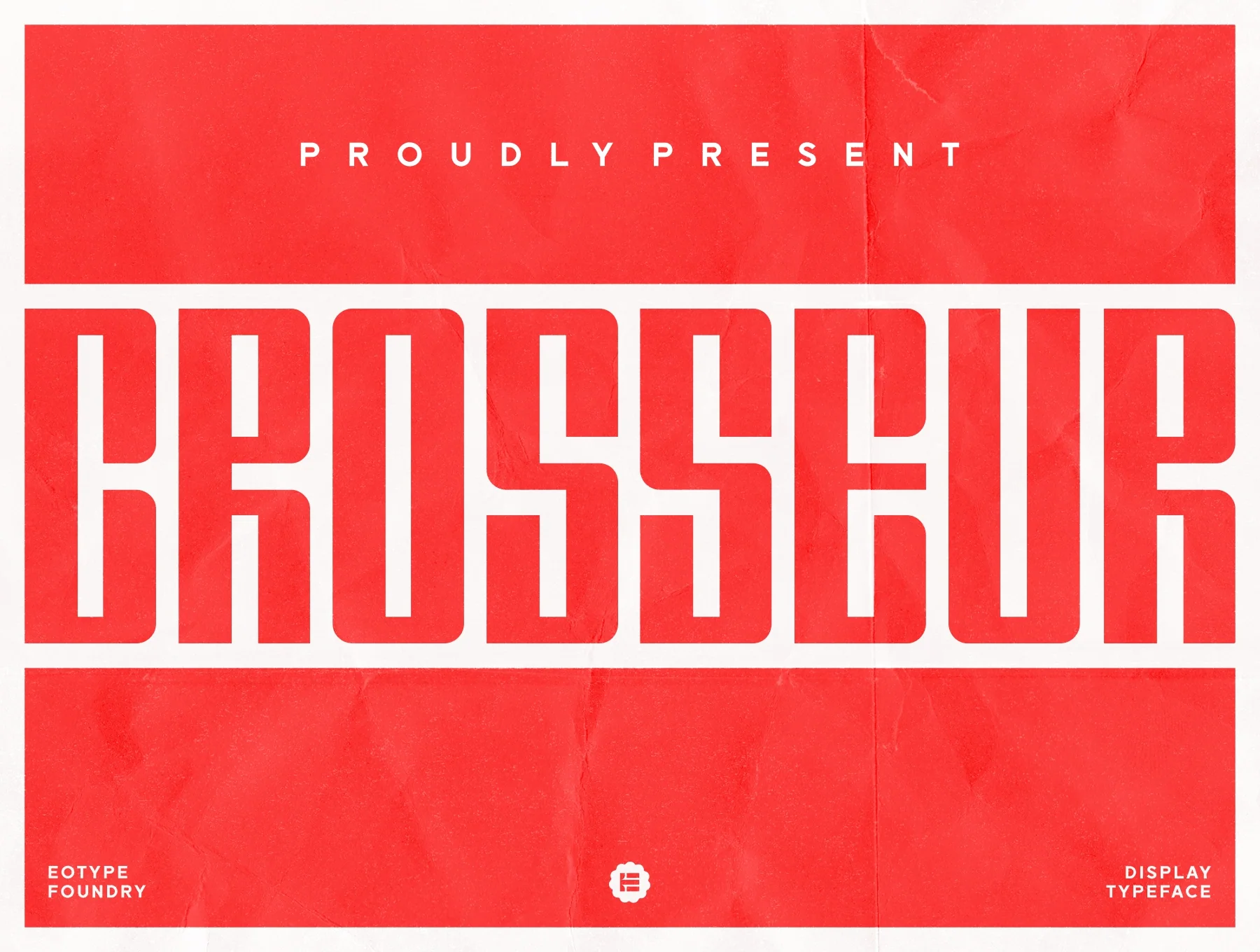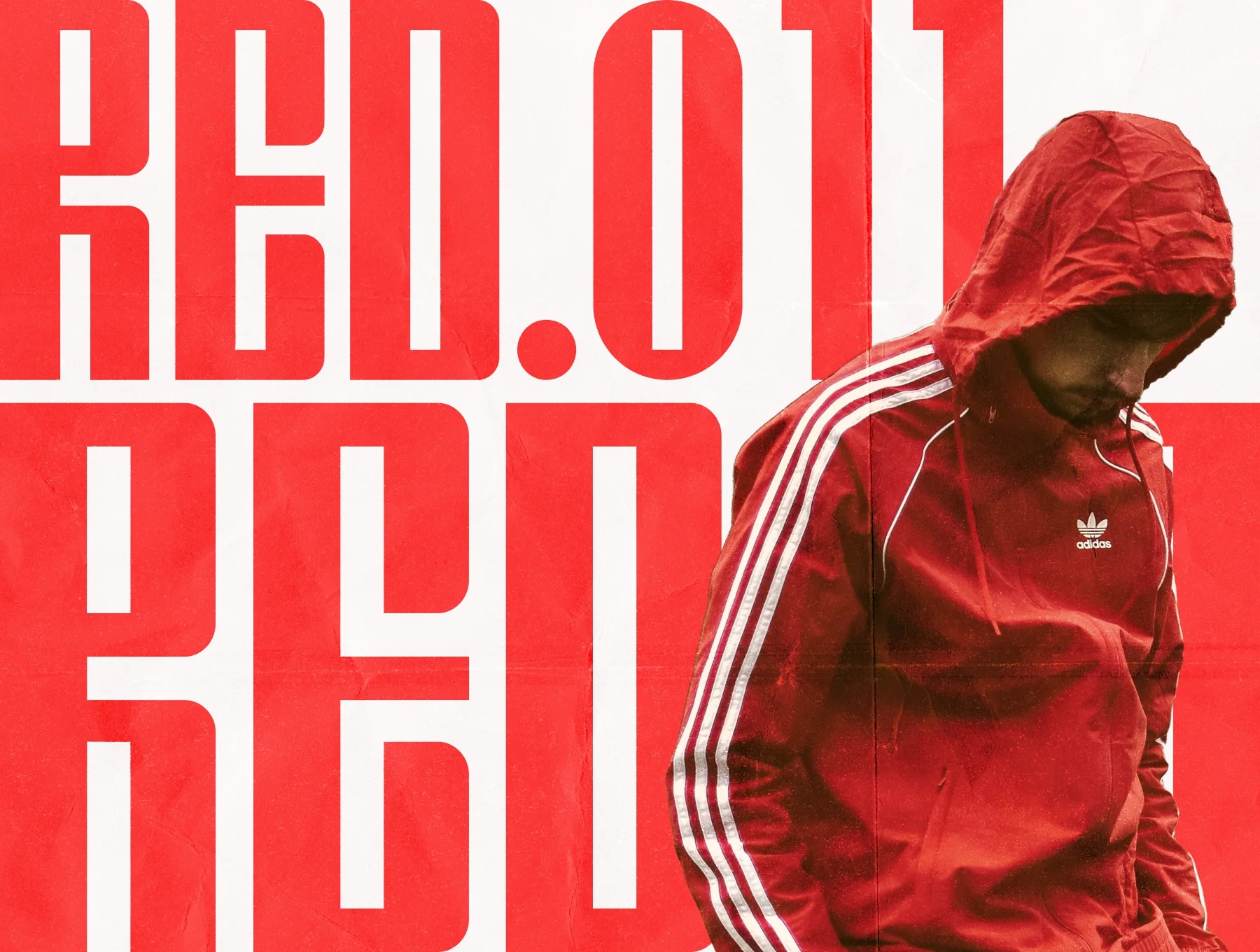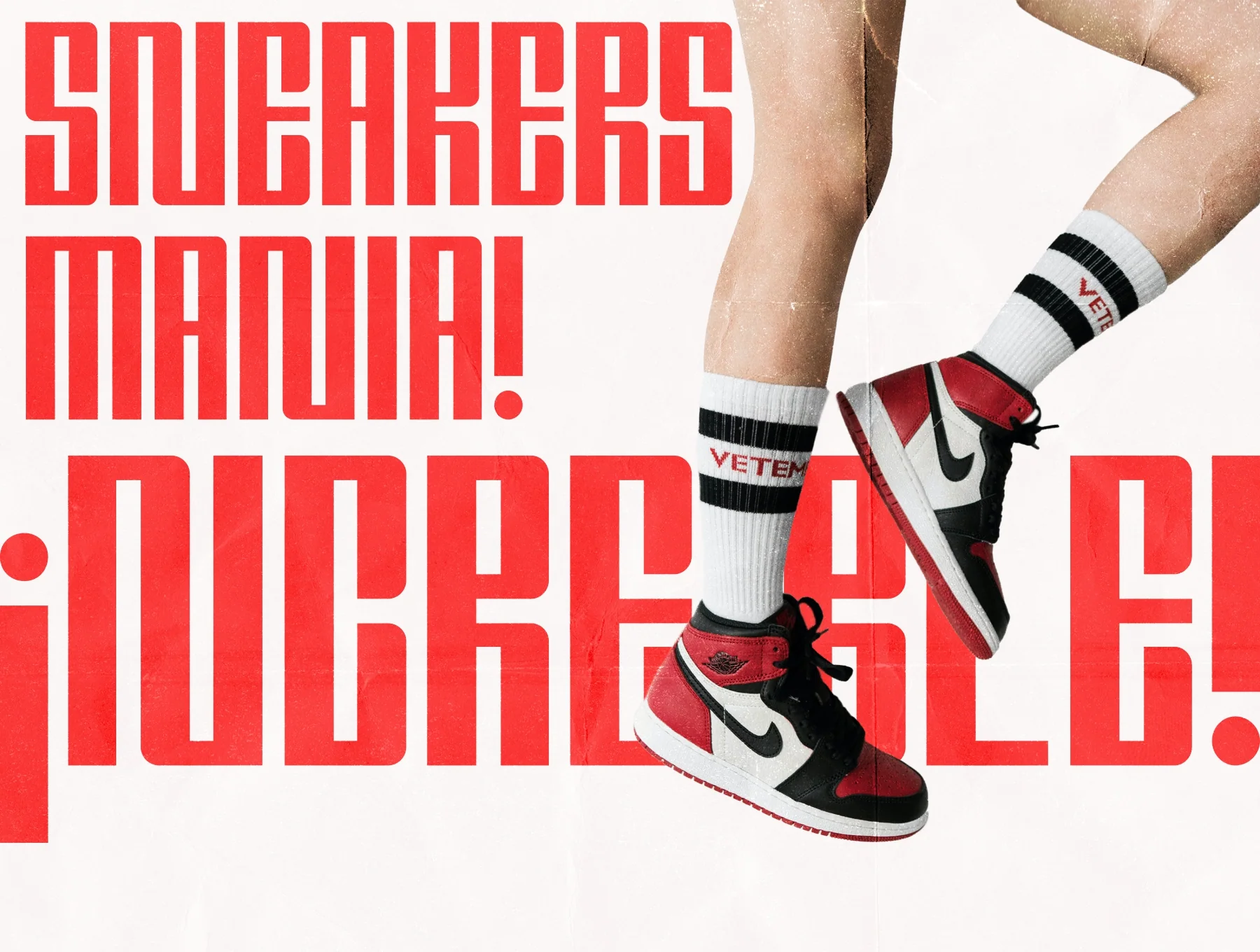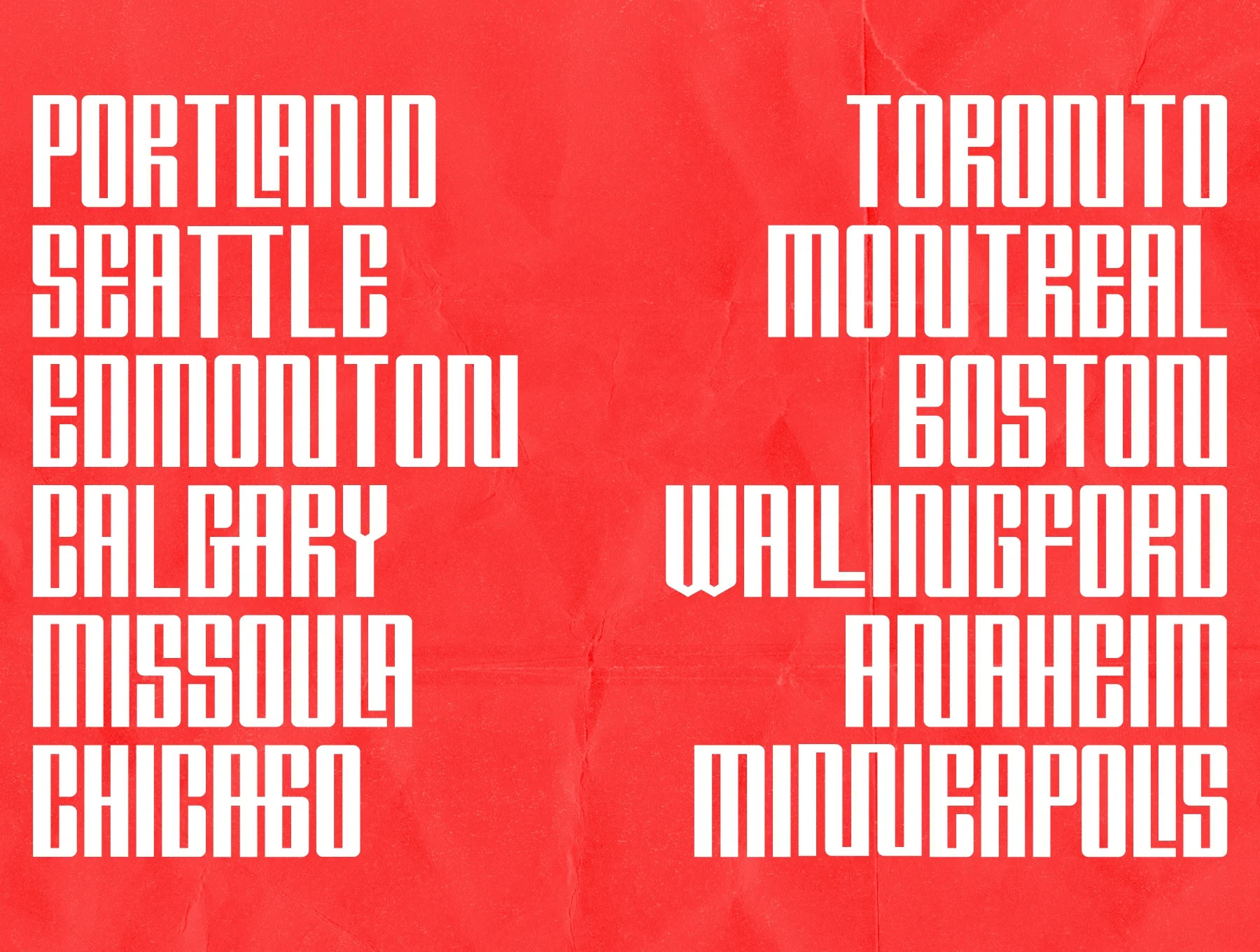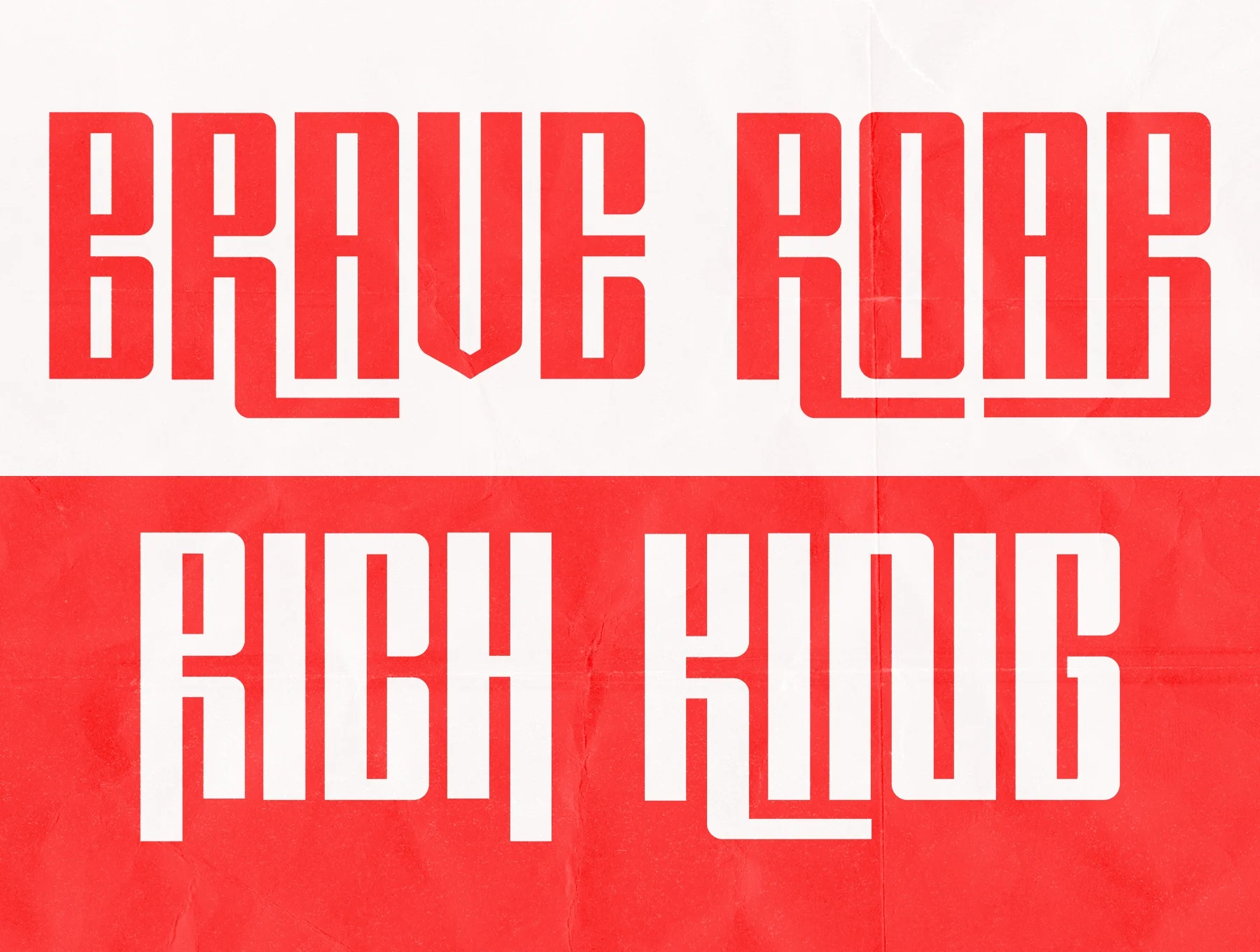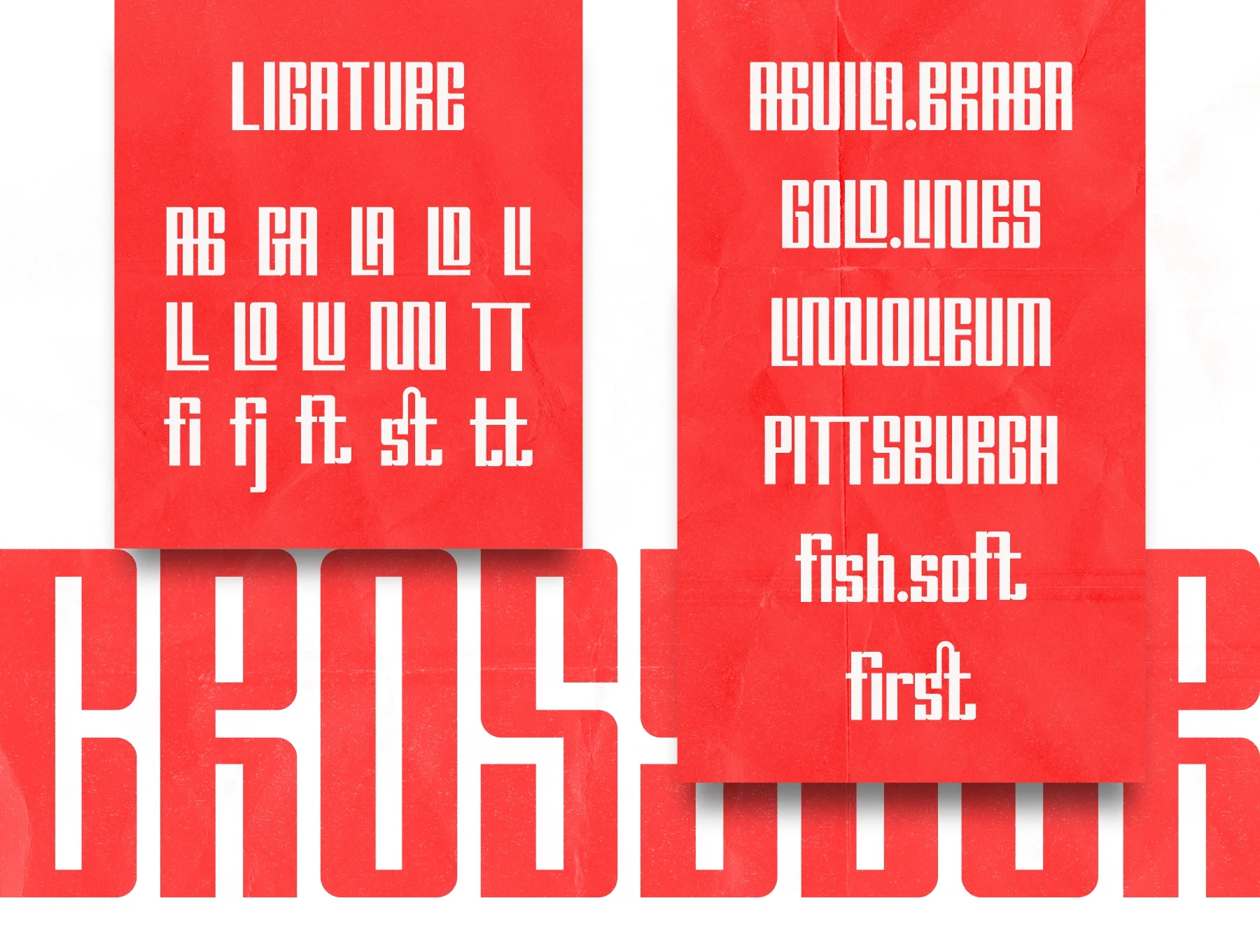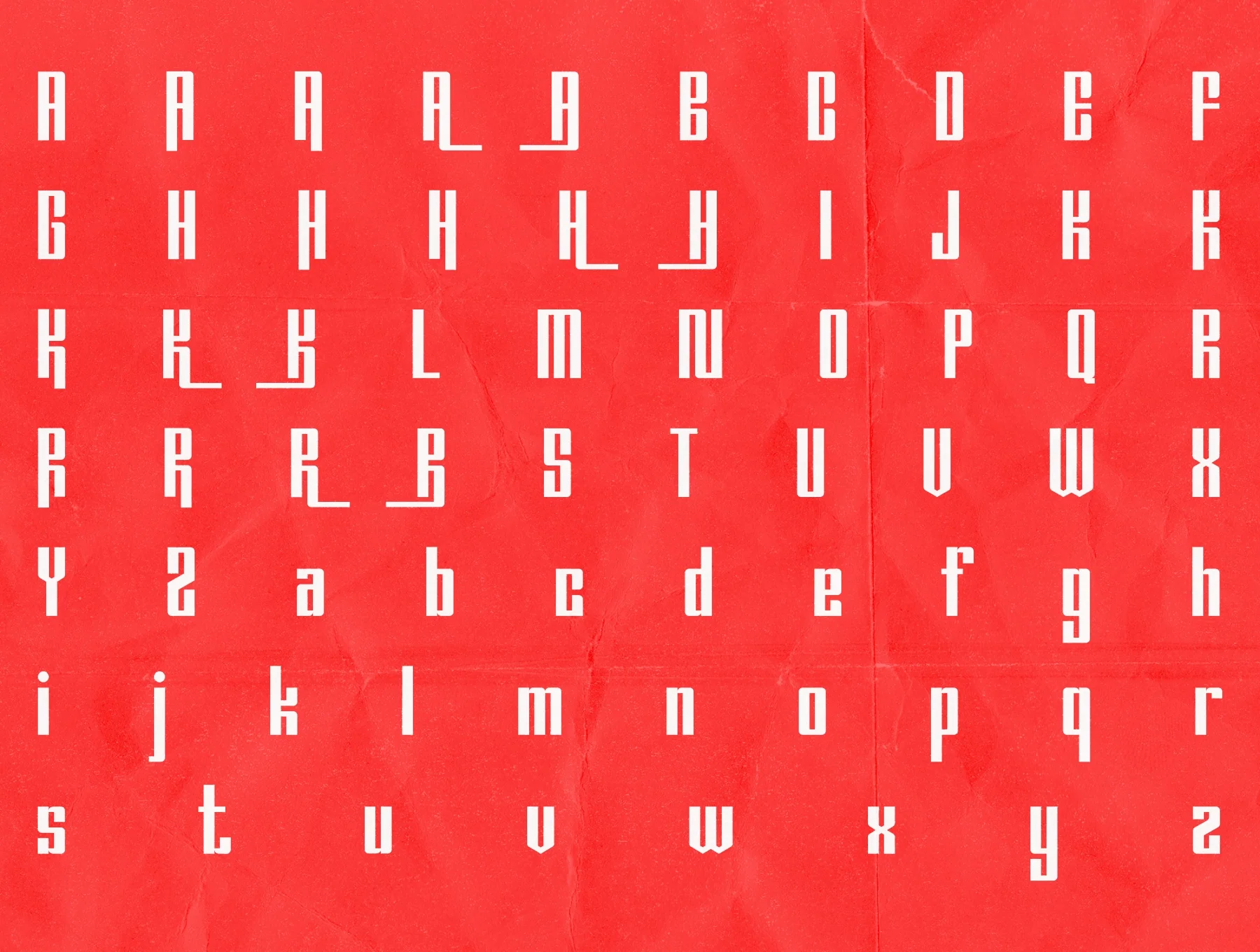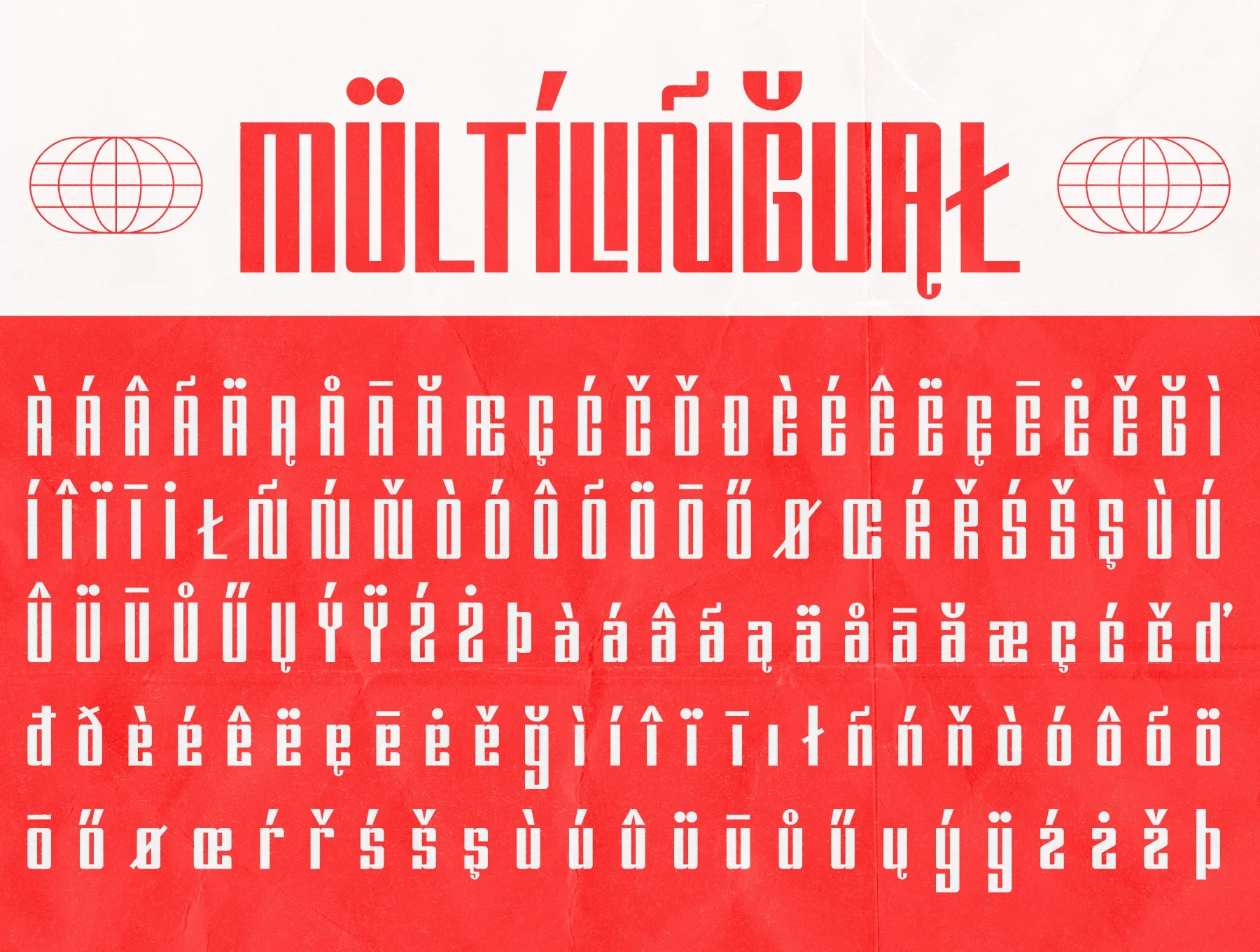
Crosseur - Display Typeface
Crosseur narrow sans serif typeface
Core glyph set
Versatile display font
Numbers and marks
Alternate styles with ligatures
Crosseur by Eotype Foundry is a compact sans-serif font crafted for contemporary creative work. It includes stylistic alternates, ligatures, and multilingual support, making it ideal for standout logos, refined magazine layouts, and bold modern design.